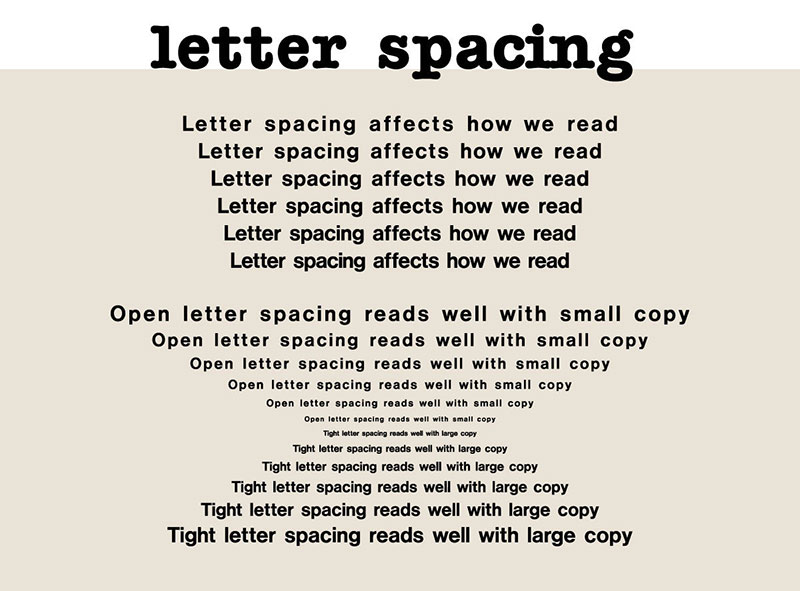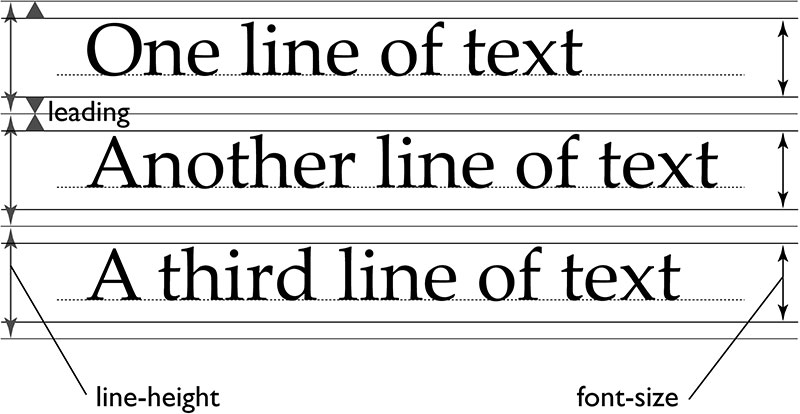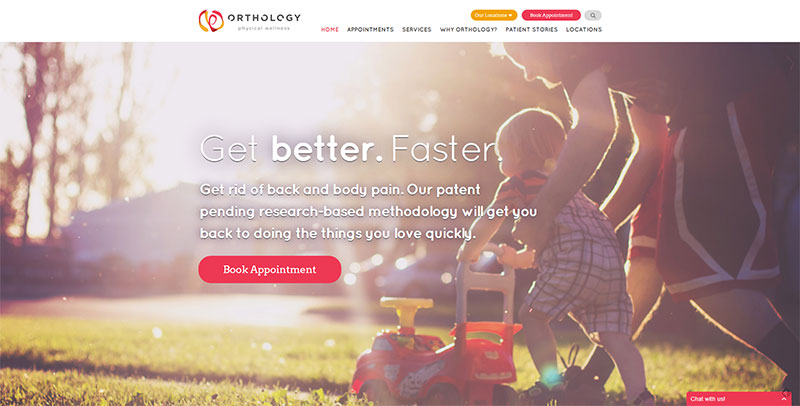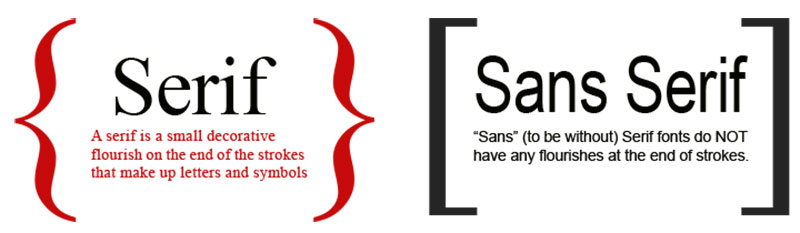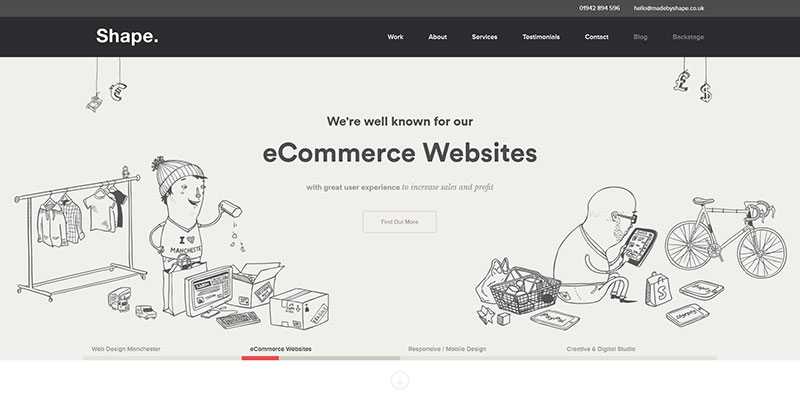
What are some of the web typography best practices? Gutenberg discovery allowed us to develop the technology that we use to communicate today. The smartphone, tablets, computers and the internet were all produced by the sharing of ideas through print. Today we use the internet to meet our needs regarding knowledge and entertainment. The sad part is that print is becoming a dying art. However, digital print is exploding.
Today we no longer use movable print as often; instead, we have replaced it with software that can do the same in a quicker manner. Without typographic fonts, we would not be able to communicate using advanced technologies. The internet itself would not exist.
We have much to thank Gutenberg for; he can even be considered the Father of technology. Through this new technology, new ideas and findings can travel worldwide in just a few days. Imagine not being able to Google a word definition or explanation. It would be much harder if we had to depend on print since it takes longer and is more difficult to access information.
Transitioning To Web Typography
It’s for this reason that Web designers value text. They have helped to show us the importance of text in spreading information and knowledge. They make use of beautiful web typography to inform and entertain us every day. You will find typographic fonts everywhere on the web.
It’s used in different applications and missions to legibility convey knowledge and entertainment through the bulk of web-based projects that are easily read by users. Web typography best practices keep things readable and are an important aspect of the success of the web.
Things Can Go Wrong
Sometimes, however, things go wrong. For some reason, the page is not readable, or it’s cluttered and confusing. This issue is where web typographic best practices come into play. They can be used to determine what went wrong and how to correct the issue.
It’s possible that a developer for some reason has overlooked the way a typographic element interacts with other elements on a page. This lack of testing can lead to some real issues with its readability. Typography should gently weave throughout the page, interacting with other elements in a way that allows it to keep its structure.
This issue usually occurs when we proceed without the proper testing to make sure that all the interactions end well without breaking our project in any way. Beyond all these interactions, there are good web typography best practices to be considered.
To use typography well, we must understand how it was developed and how people have allowed this advance to develop. This type of knowledge will give the designer a deeper comprehension of type usage. It also allows us to better choose from among the many best web typography available today.
Limit The Number of Fonts Found On One-Page
Again this is caused by persons wanting to try out all of the great fonts they have found. It’s also a big no-no in the design world. It can cause significant readability issues, and many readers are turned off by it. It makes the page seem much more complicated and cluttered than it is.
Think of buying a new wardrobe. You have so many beautiful things to wear, and you’re excited about it, but you would never wear all of it at once. You also shouldn’t attempt to try out too many fonts at once.
Serif and San Serif Fonts Are Not Interchangeable
This is a mistake often made by new designers or non-designers who are attempting to put together a web page. The issue is one of readability. Sans Serif fonts should be reserved for pages that are intended to be read from far away.
That is why it makes great headlines, it’s easily seen and the eyes are drawn to it. Serif fonts are intended for private reading and are easier to read close-up. Many books are printed using Serif for just that reason. So decide how you want the text to be read and apply to close-up and far off rule.
Of course, this is a general rule, but you should always use a font depending on your audience.
The Choice of Font Will Affect How Readers Feel About A Page
First impressions are crucial in all areas of commerce and entertainment sites. The designer will have to decide the purpose of a site by determining its type. Is it professional or casual? Perhaps it should be creative or unique. Once this is determined, work can begin.
Conclusion: Web Typography Best Practices
There are so many beautiful web typographic that a designer can get carried away. However, using btter web typography practices can make the difference in whether or not a user returns or just leaves right away. After all, that is the goal of all web designers, readability and return visitors. Keep those two goals in mind and you will go a long way to becoming a success.